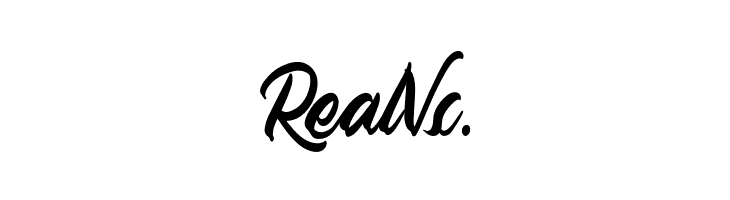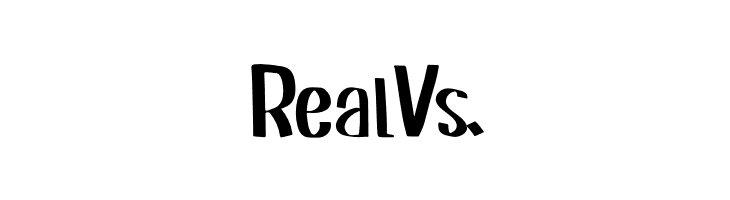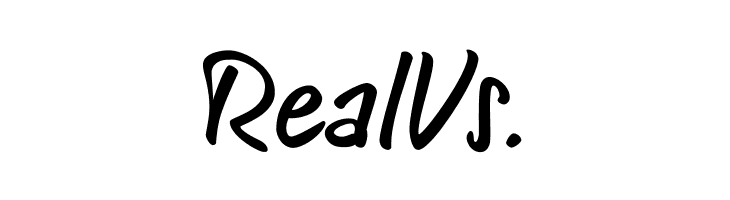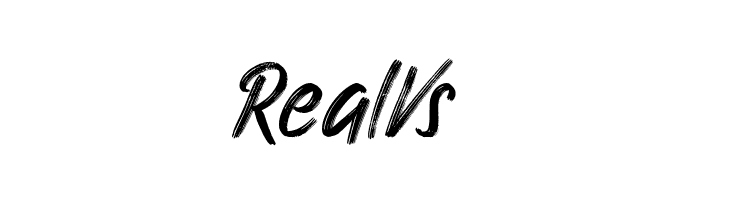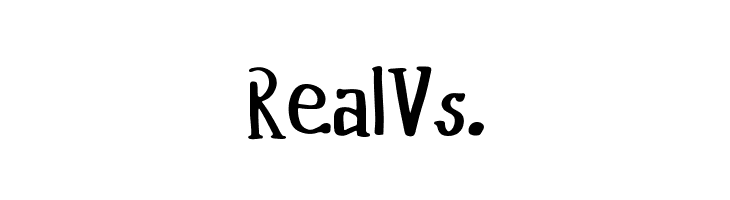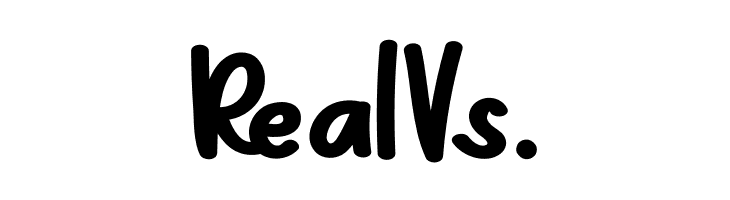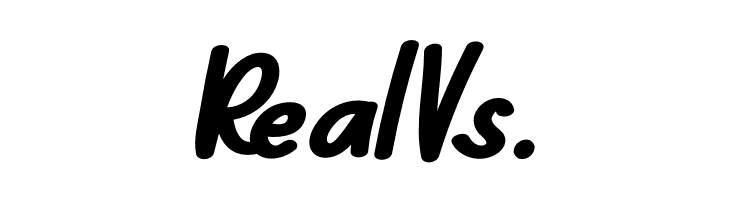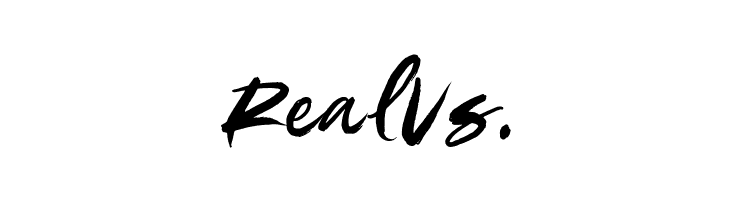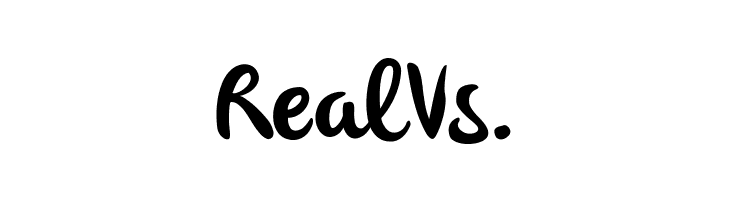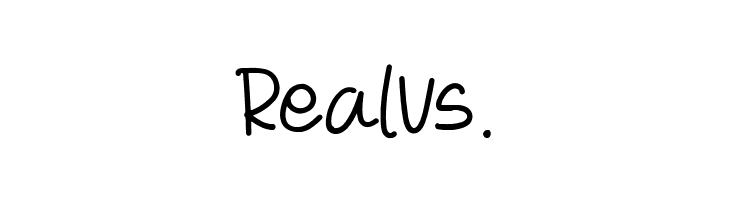
A playful, bold, and hand-drawn font with a whimsical and energetic style.
A lively and elegant script font with flowing, cursive letterforms.
A playful, handwritten script font with bold, smooth curves and unique flourishes.
A modern, flowing cursive font with elegant connections and a dynamic style.
A cursive, handwritten font with a fluid and elegant style.
A graceful and flowing script font with elegant cursive strokes.
Handwritten calligraphic script with elegant, flowing strokes.
A dynamic, expressive script font with a modern, handwritten style.
A dynamic, cursive font with fluid strokes and elegant slant.
A playful, rounded font with smooth curves and a friendly vibe.
A cursive, calligraphic font with elegant loops and artistic flair.
A graceful, cursive script font with smooth, connected strokes and a sophisticated appearance.
A modern, elegant handwritten font with fluid strokes and graceful curves.
A decorative font with uppercase letters in floral-adorned circles, ideal for elegant designs.
An elegant cursive font with flowing, sophisticated strokes.
An elegant script font with flowing, cursive style and intricate swashes.
An elegant cursive font with decorative flourishes and a sophisticated style.
An elegant script font with flowing, intricate loops and swashes.
A graceful, cursive script font with fluid, elegant lines.
An elegant and sophisticated script font with decorative flourishes.
A clean, modern sans-serif font with a geometric structure and balanced appearance.
A bold, modern sans-serif font with clean lines and uniform strokes.
A playful, handwritten font with smooth, rounded edges and consistent stroke width.
A bold, rounded font with a playful and friendly style.
A playful, rounded font with a handwritten style and even spacing.
A playful, rounded font with bold, smooth curves and a modern, casual style.
A playful, rounded font with a modern and approachable style.
A playful, rounded font with smooth curves and a bold weight.
A playful, rounded sans-serif font with smooth curves and a friendly appearance.
A playful, rounded font with smooth curves and consistent stroke width.
A bold, modern sans-serif font with clean lines and strong geometric shapes.
A flowing, cursive font with elegant, sweeping strokes and a handwritten appearance.
An elegant monogram font with decorative wreath encasements and classic serif elements.